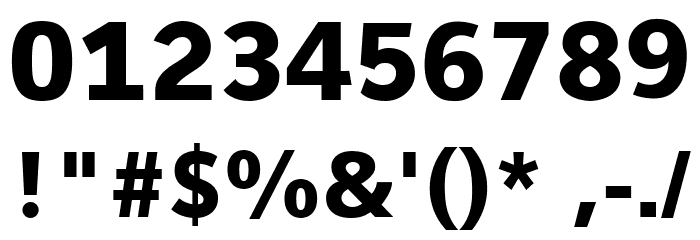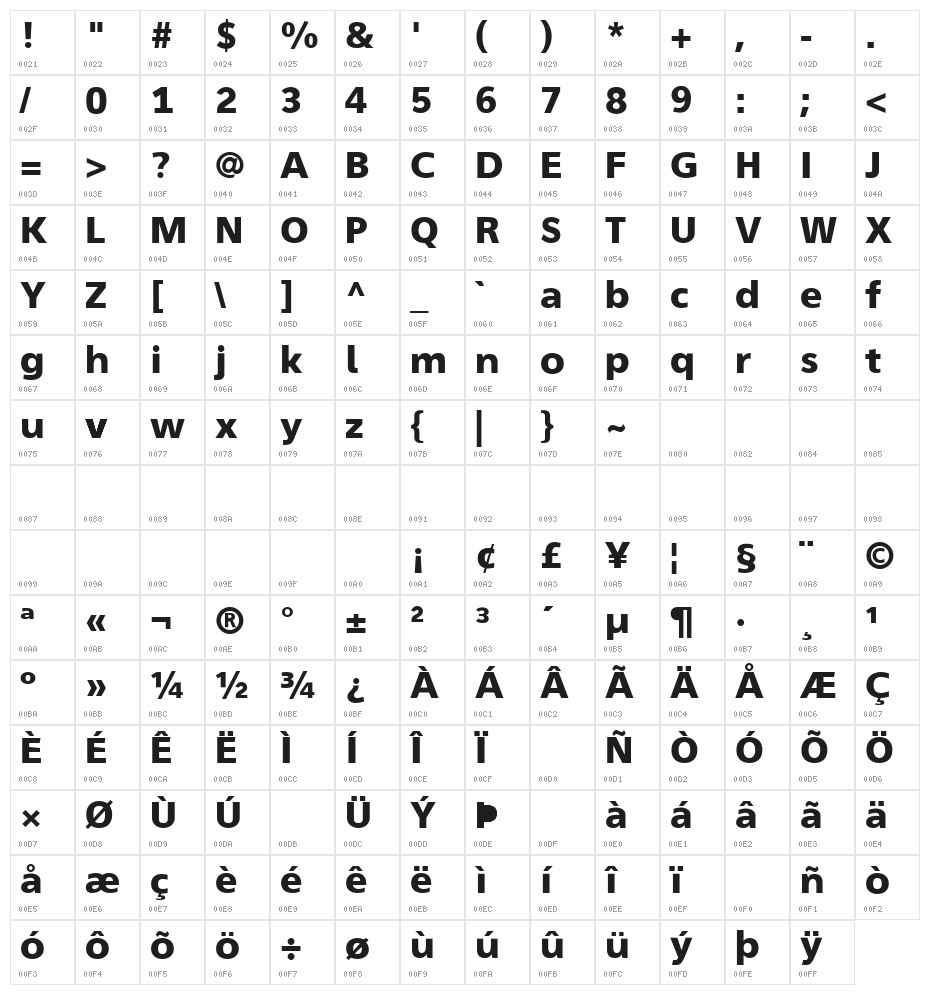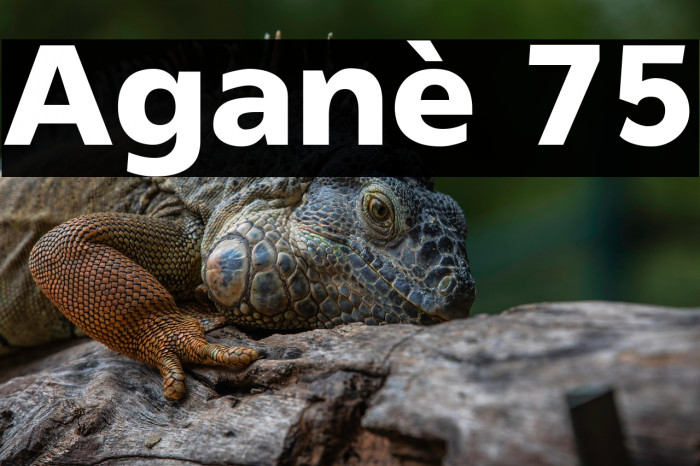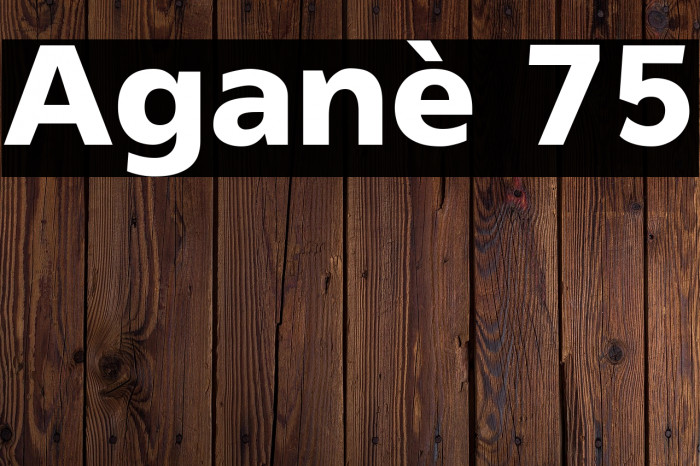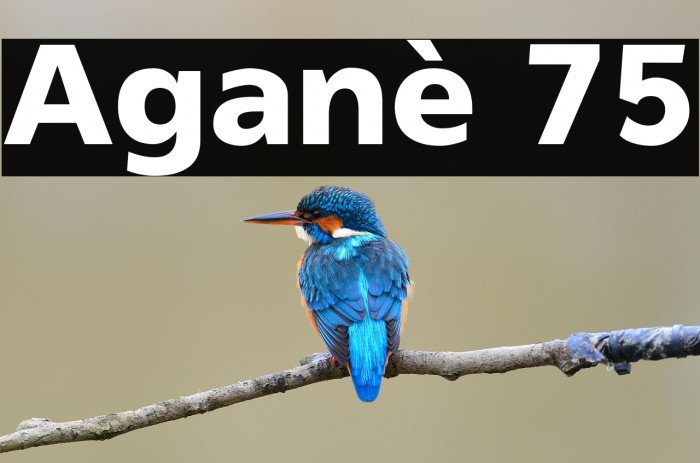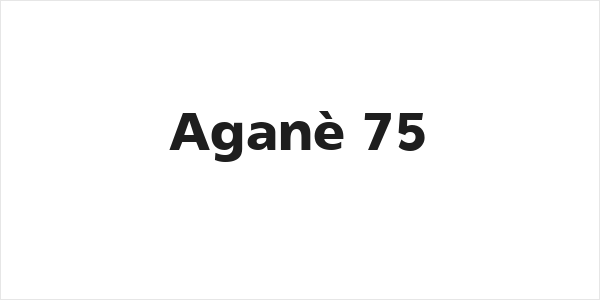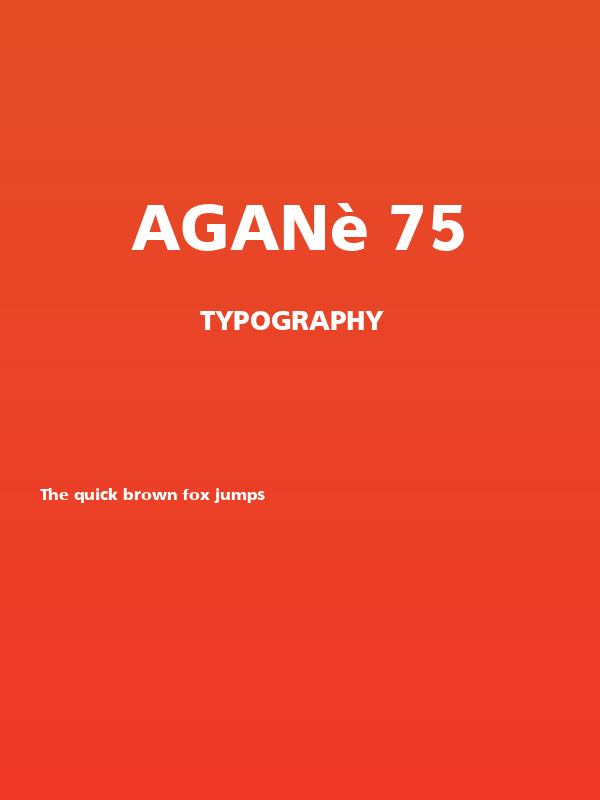
Aganè 75 Font
Aganè 75 Description
This font exhibits a bold and modern sans-serif style, characterized by its clean lines and strong presence. The uppercase letters are uniform in height, providing a sense of stability and balance. The lowercase letters maintain a consistent x-height, ensuring readability. The numerals are clear and distinct, making them suitable for various applications. Special characters are well-defined, adding versatility to the font's usage. Overall, this font's design is straightforward yet impactful, making it ideal for contemporary design projects.
| Use Case | Headlines, Logos, Advertising |
| Proposed Projects | Ideal for branding, advertising, headlines, and digital media projects. |